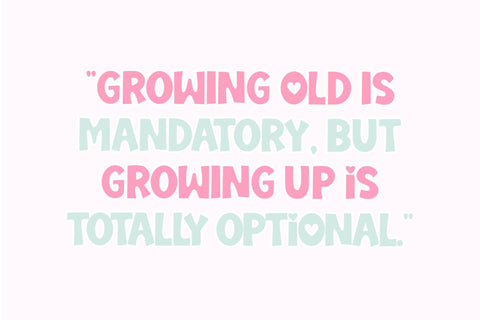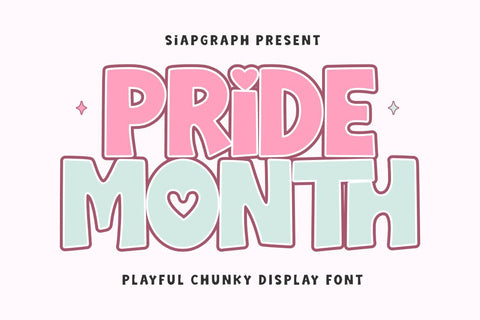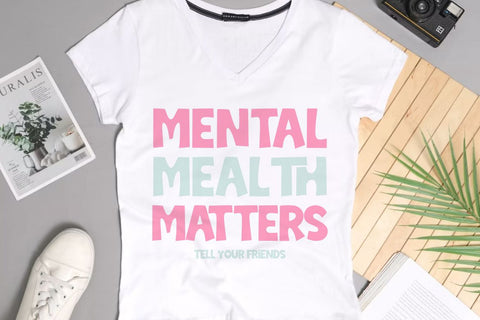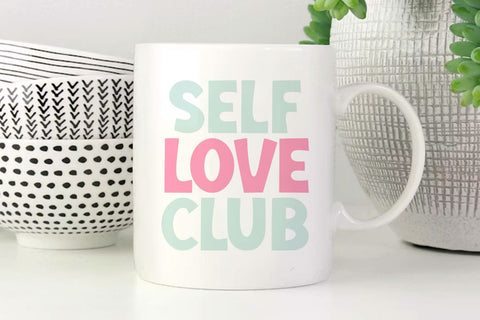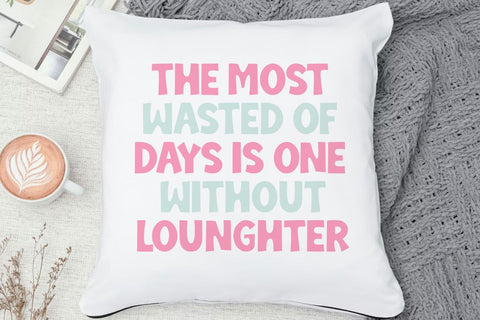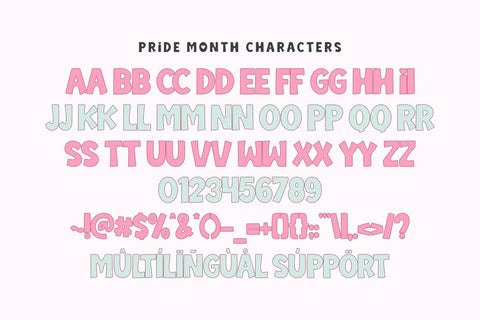
Pride Month - Playful Chunky Font
Pride month is a playful chunky display font inspired by the vibrant spirit of celebration, unity, and love. This typeface features bold, substantial letterforms with clean, distinct outlines and delightful heart accents, making it a perfect choice for designs that need to stand out with a positive and inclusive message. Its construction is specifically optimized for easy cutting, ensuring a professional, frustration-free experience for all your vinyl projects and digital creations.
Perfect for: creating high-impact SVG cut files, pride parade apparel, custom t-shirts, vinyl stickers, festive mug designs, social media graphics, and inclusive event branding. Whether you are stocking a professional Print on Demand (POD) shop or working on a special DIY craft project, this font provides the bold readability and cheerful personality needed to make your designs truly memorable.
Great for holiday themes like love-themed events, and any festive gathering that calls for a bold, joyful, and heartfelt aesthetic!